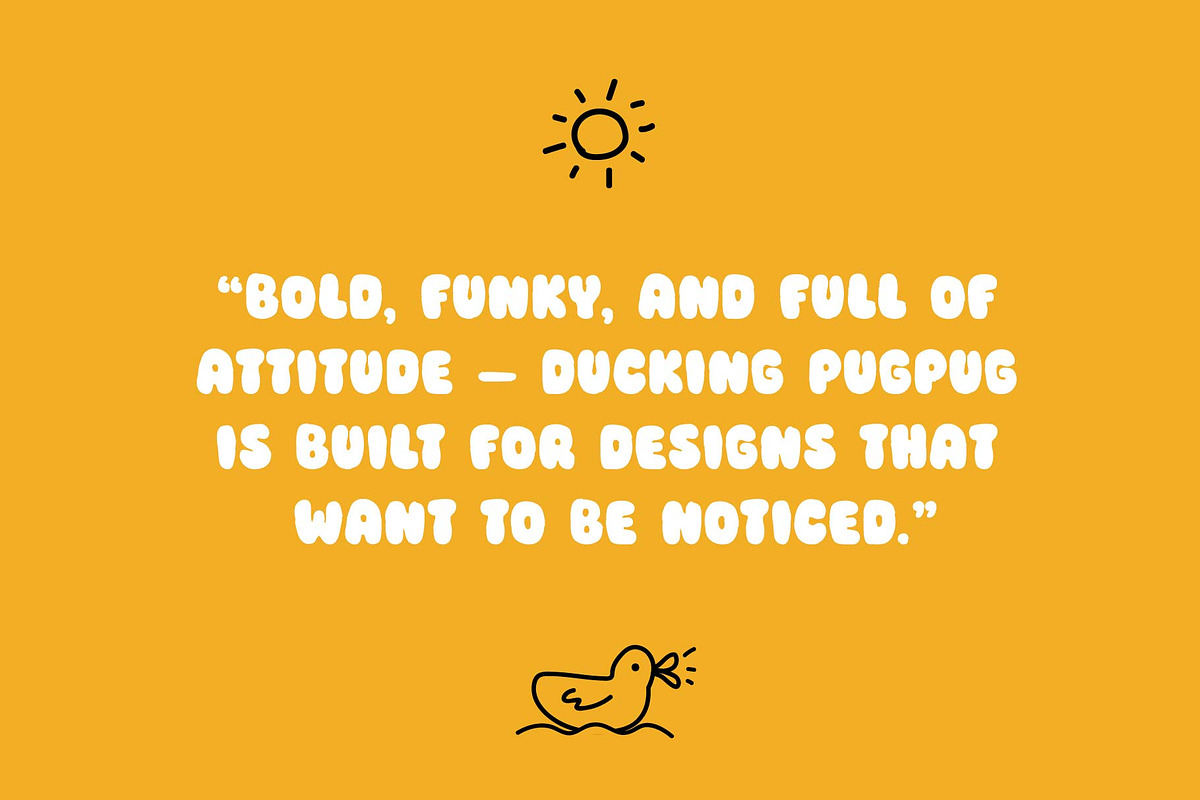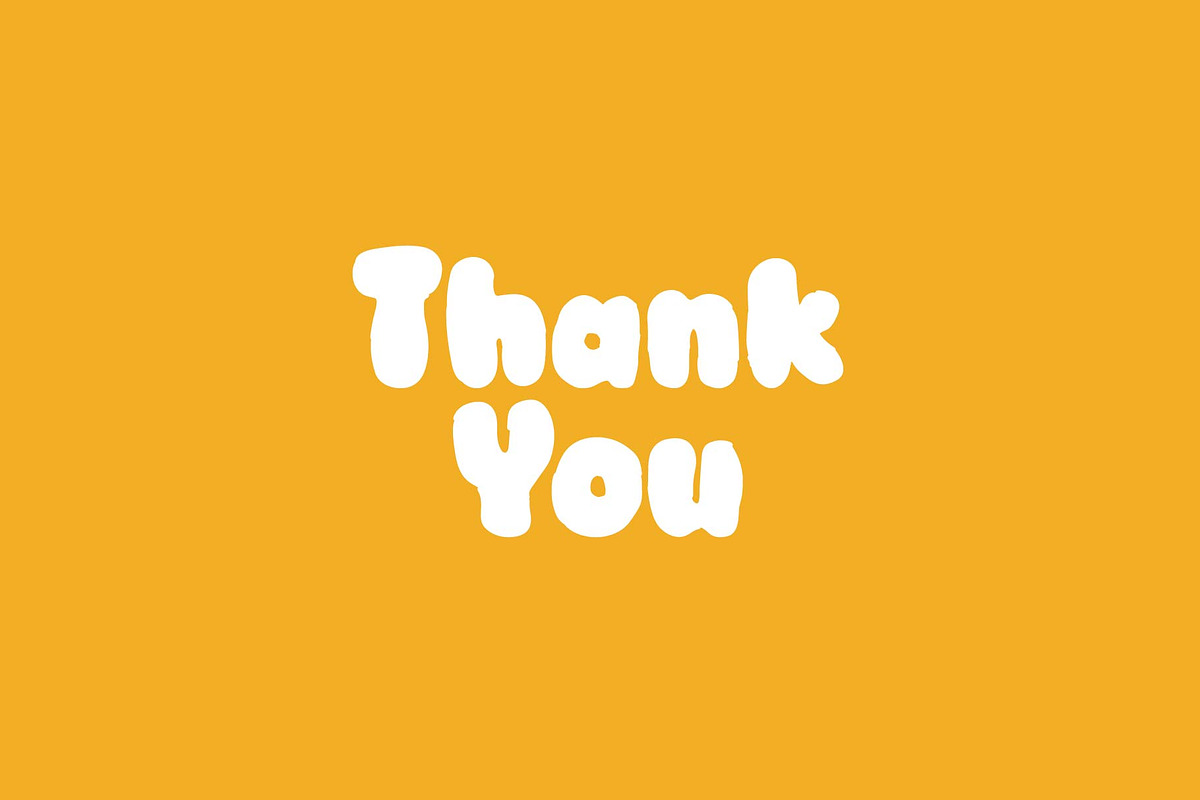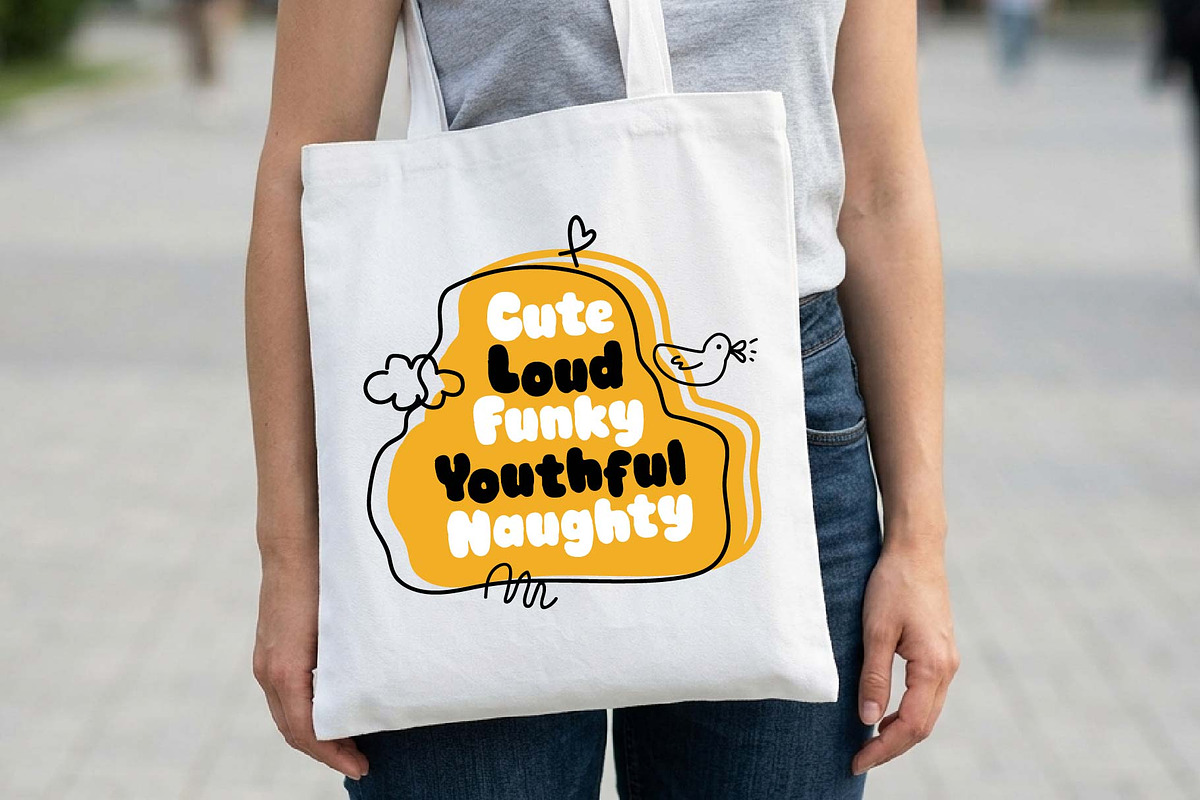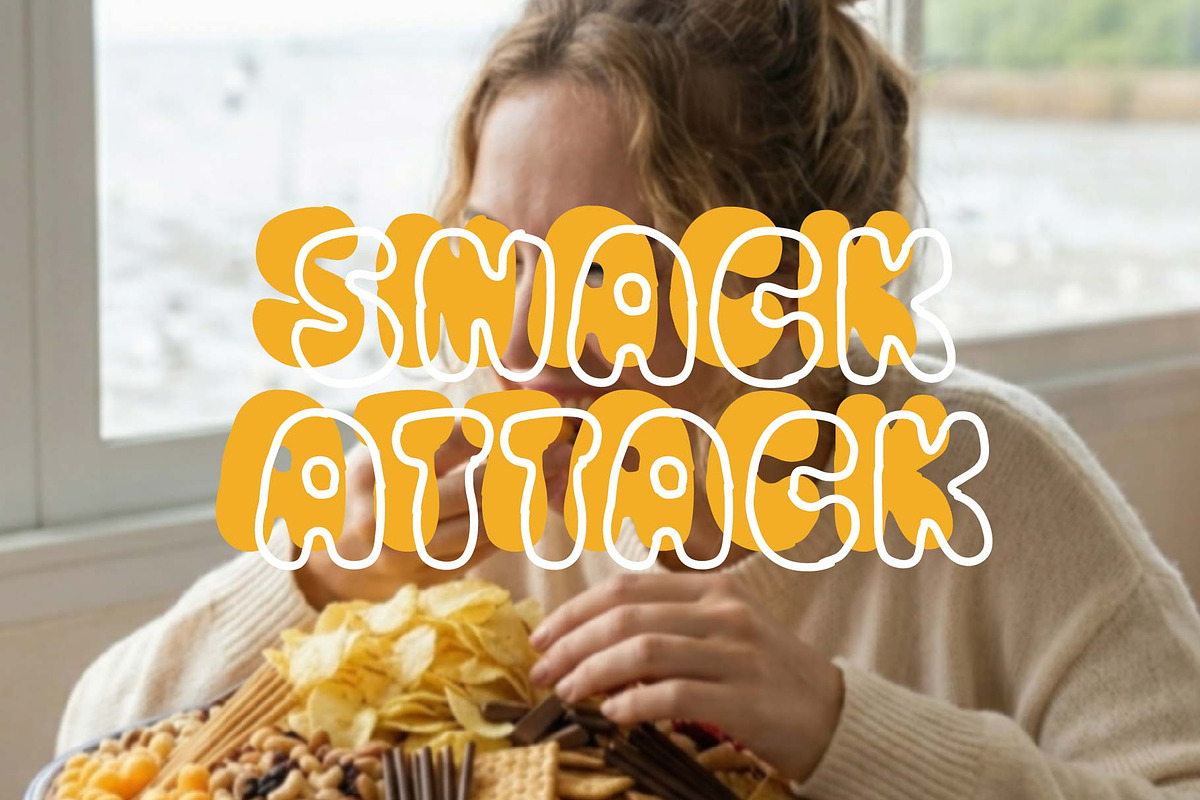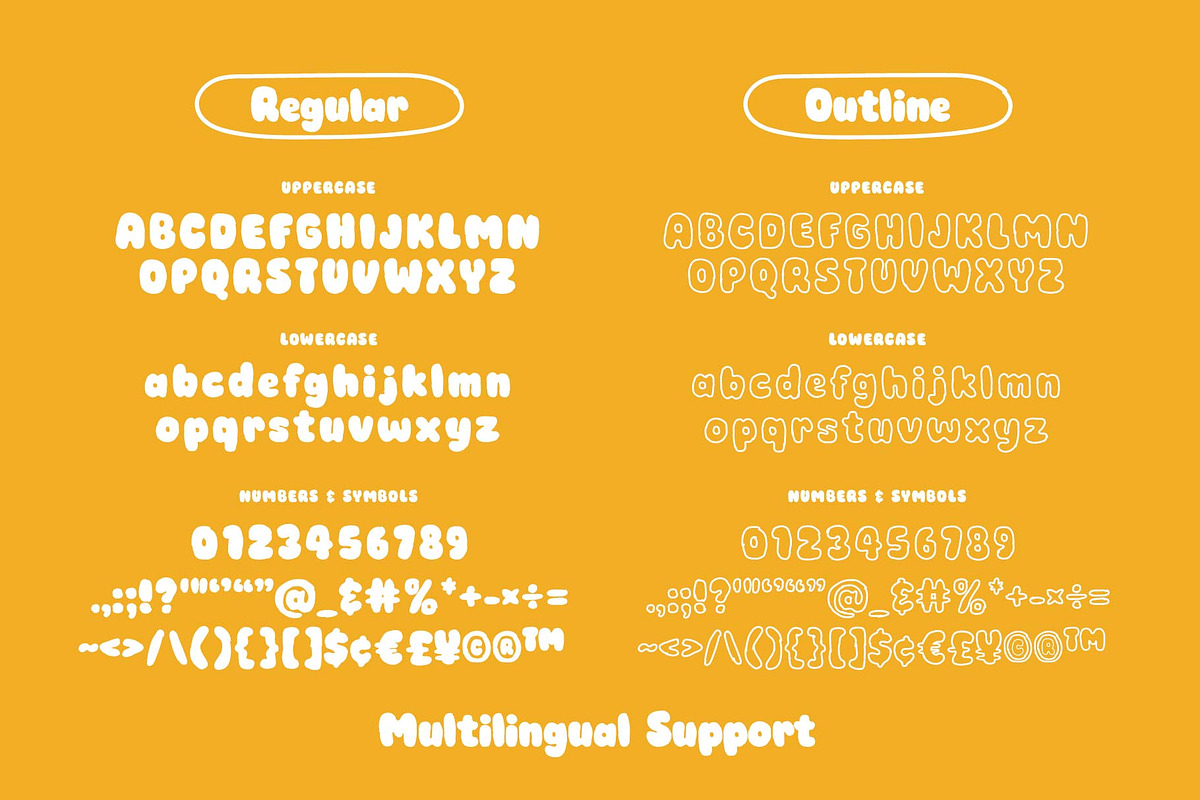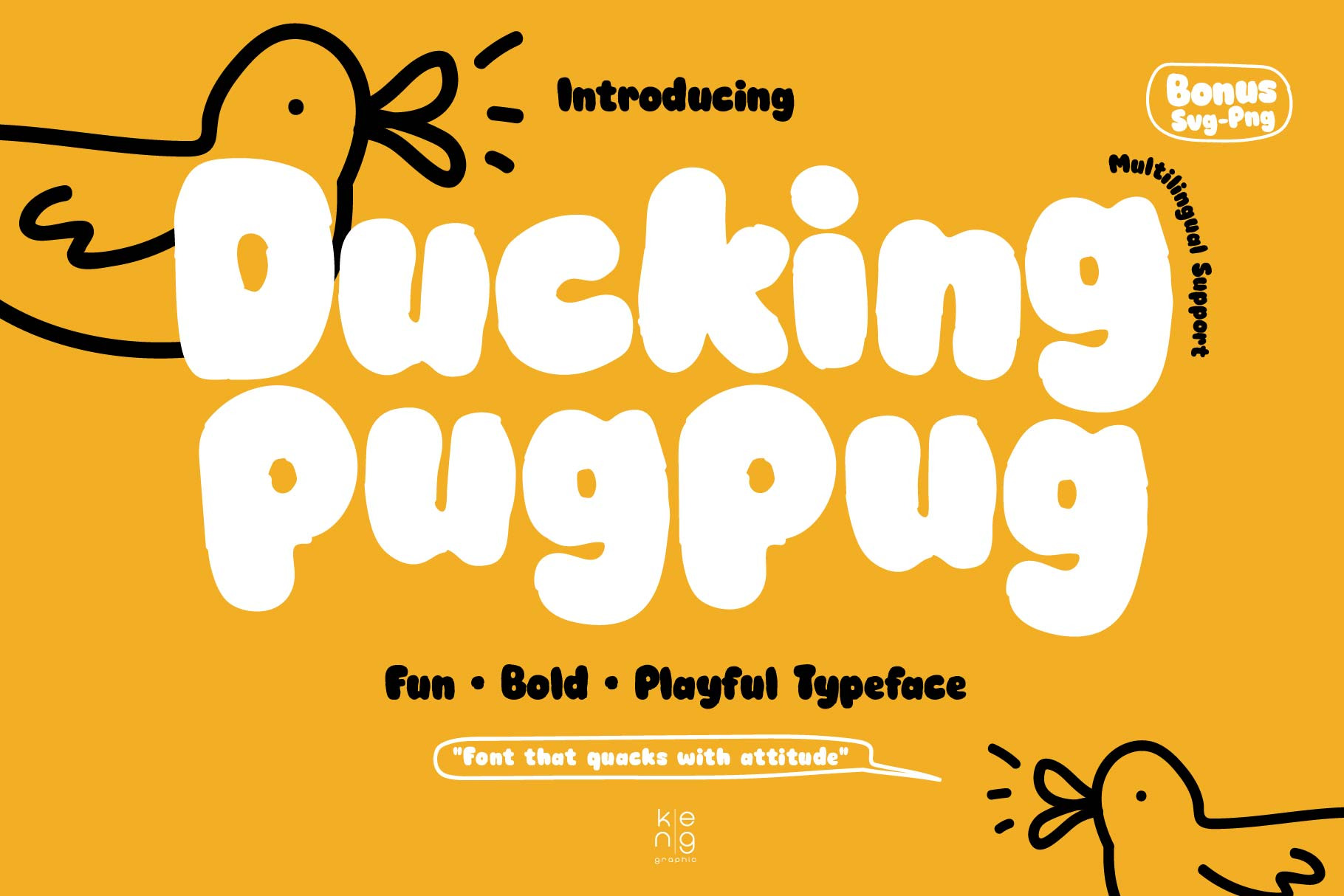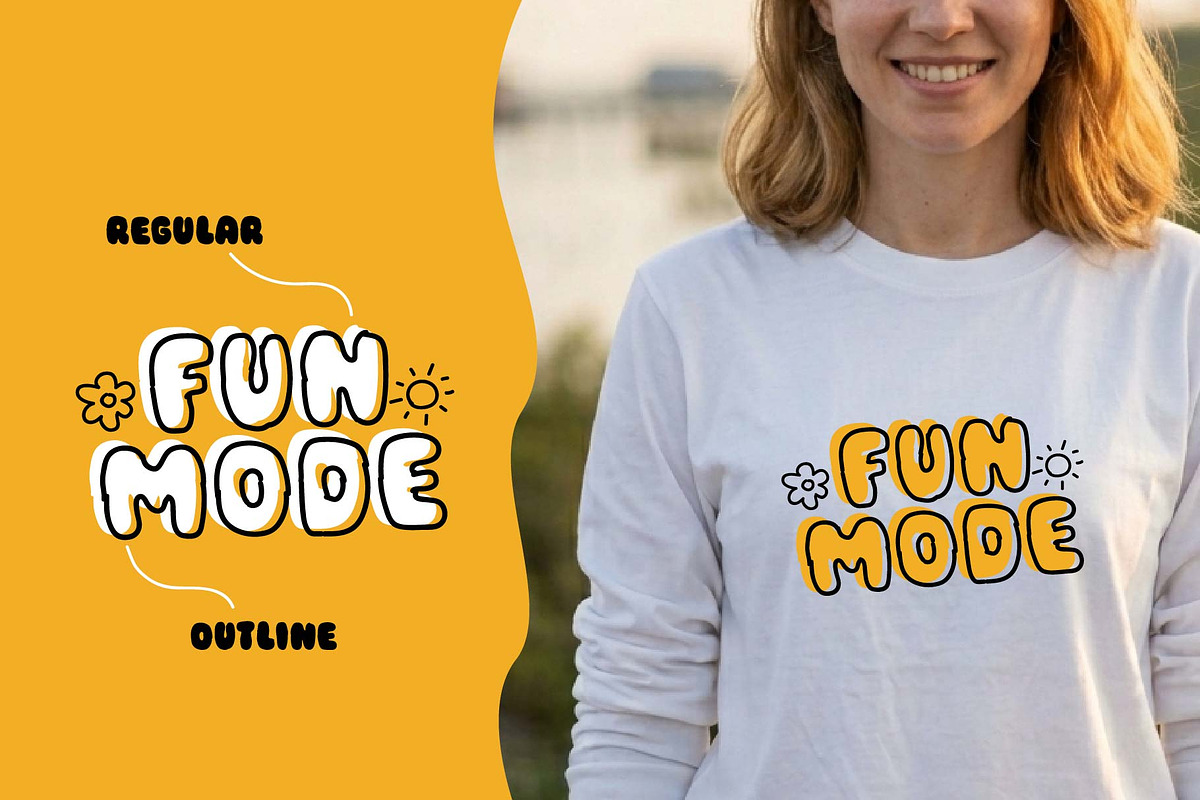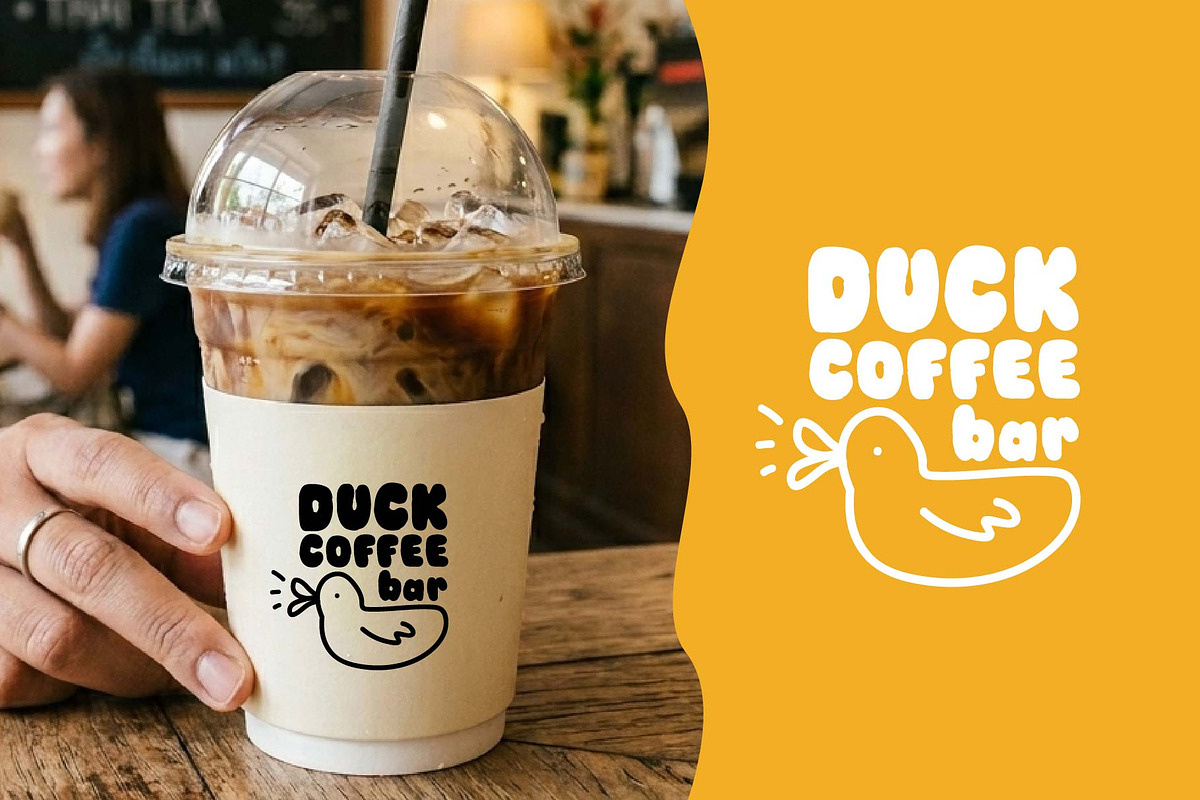
Ducking PugPug Font
Welcome to the world of Ducking Pugpug, a spirited and vibrant display font intrinsically dancing with an idiosyncratic flair and distinct magnetism. Carefully designed to captivate, it brings a breath of fresh life to everything it touches, from packaging designs and urban fashion ventures to dominant social media platforms, eye-catching poster narratives, and captivating branding notions. Wield the dynamic appeal of Ducking Pugpug to ignite your creative spark unrestricted.